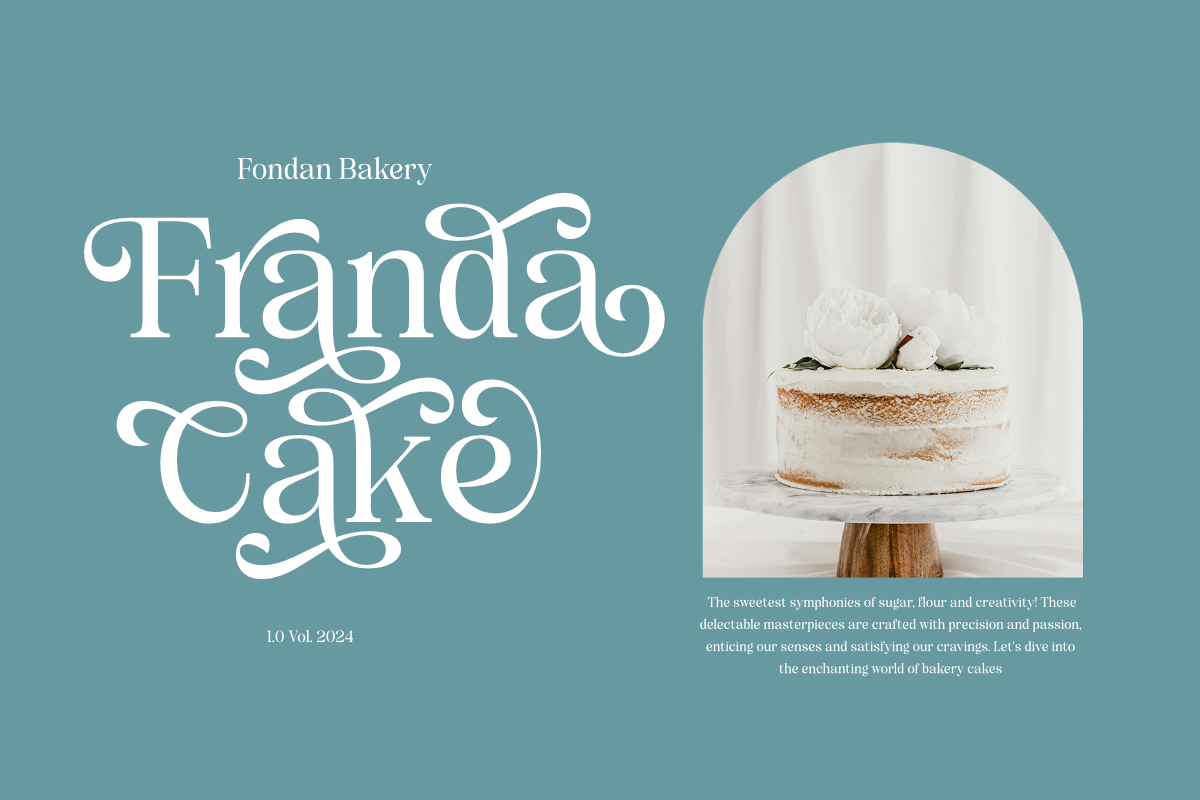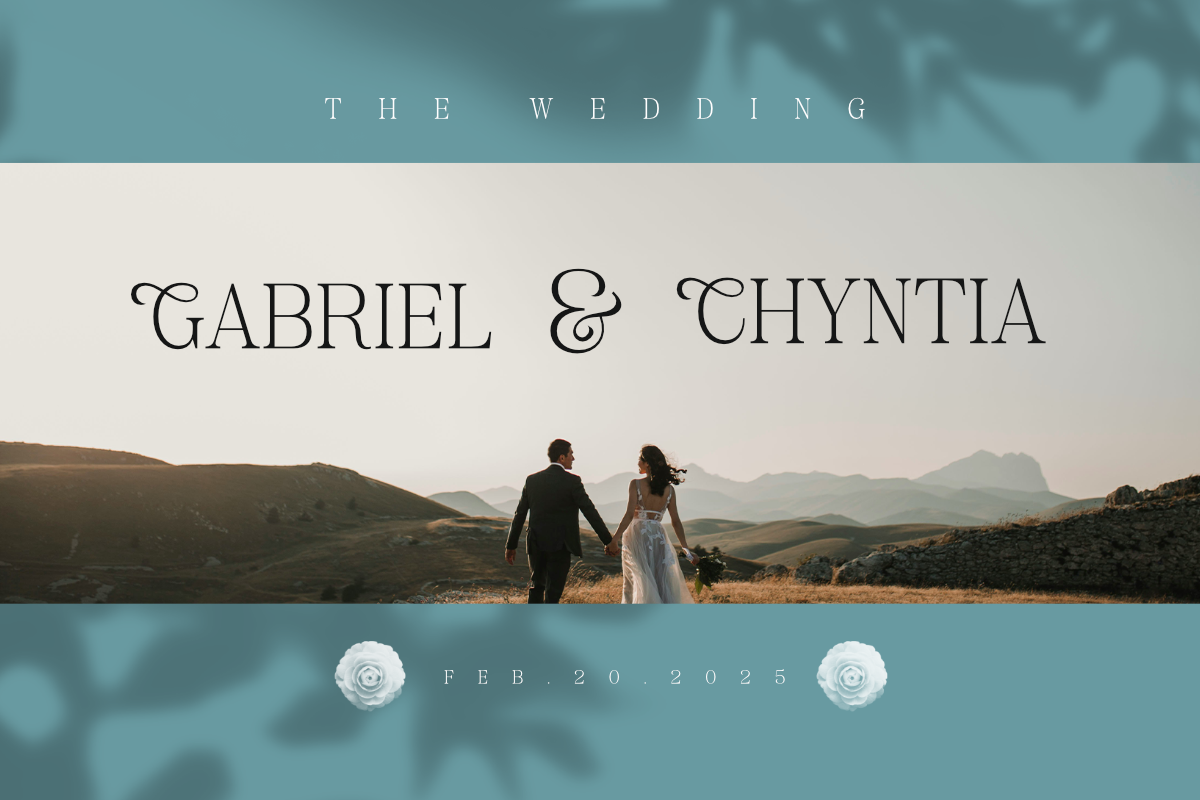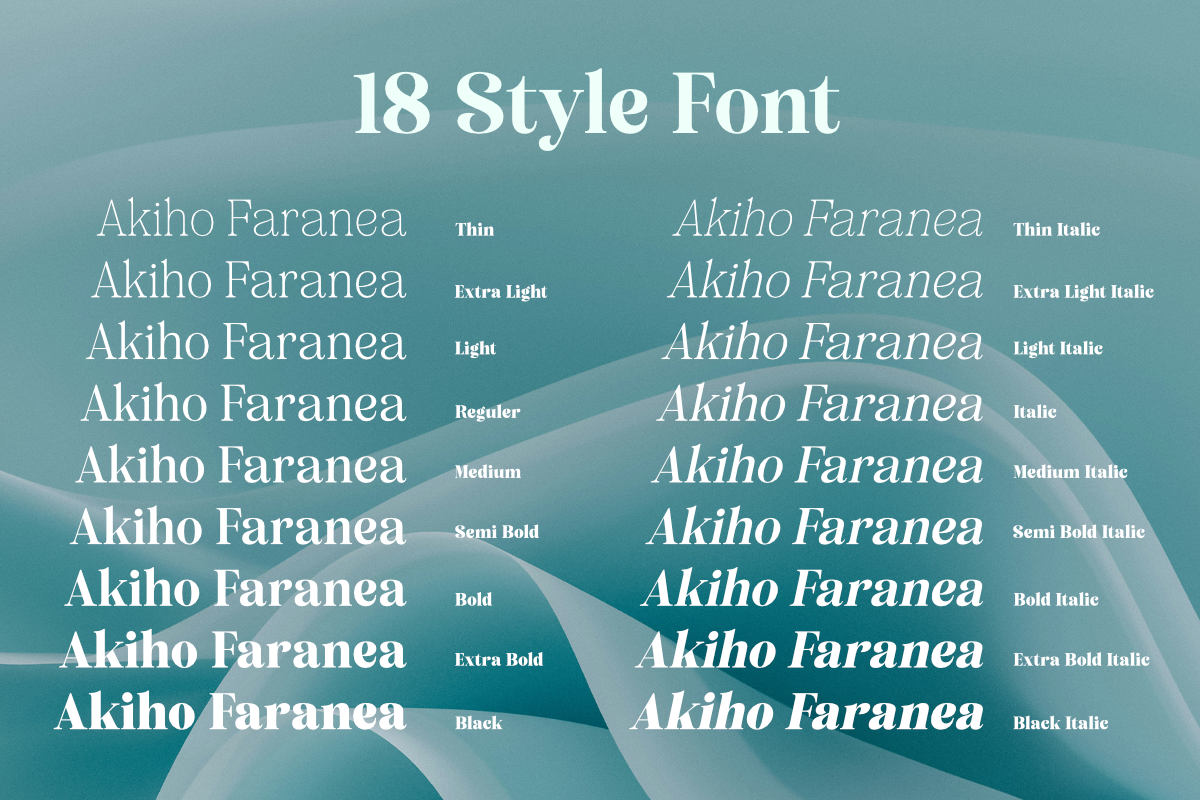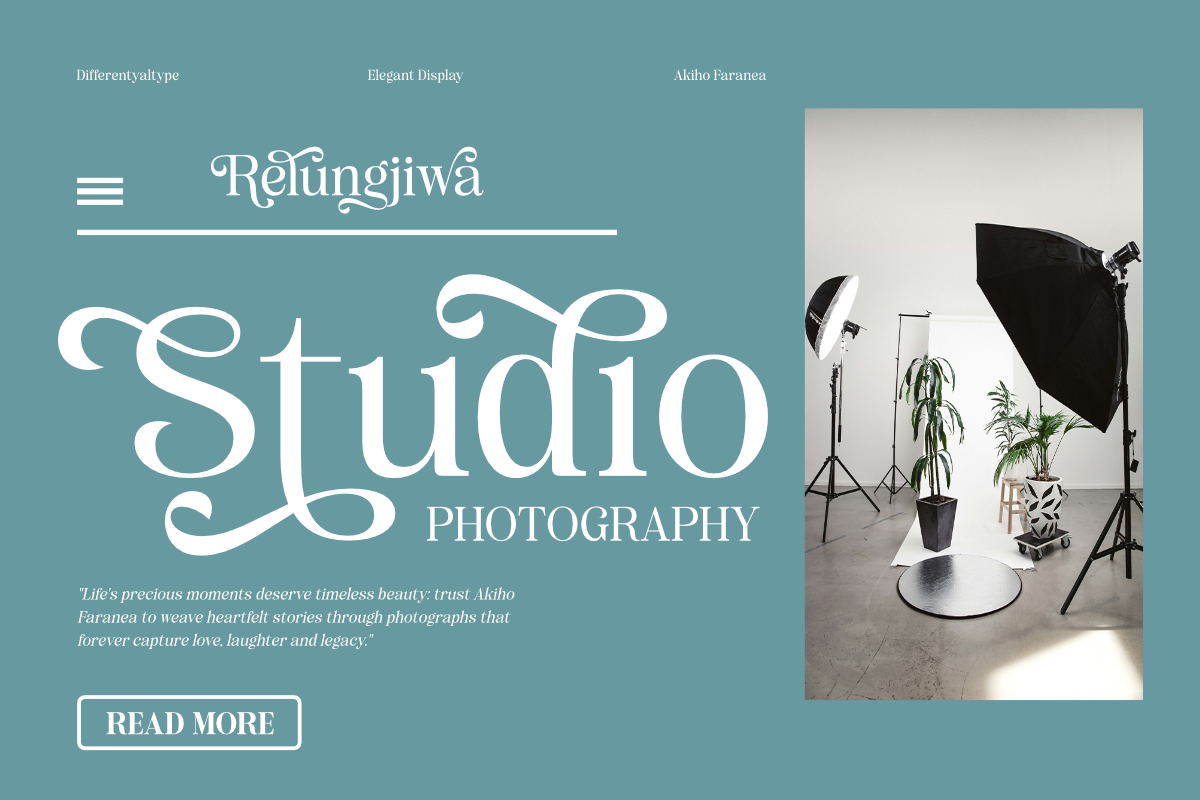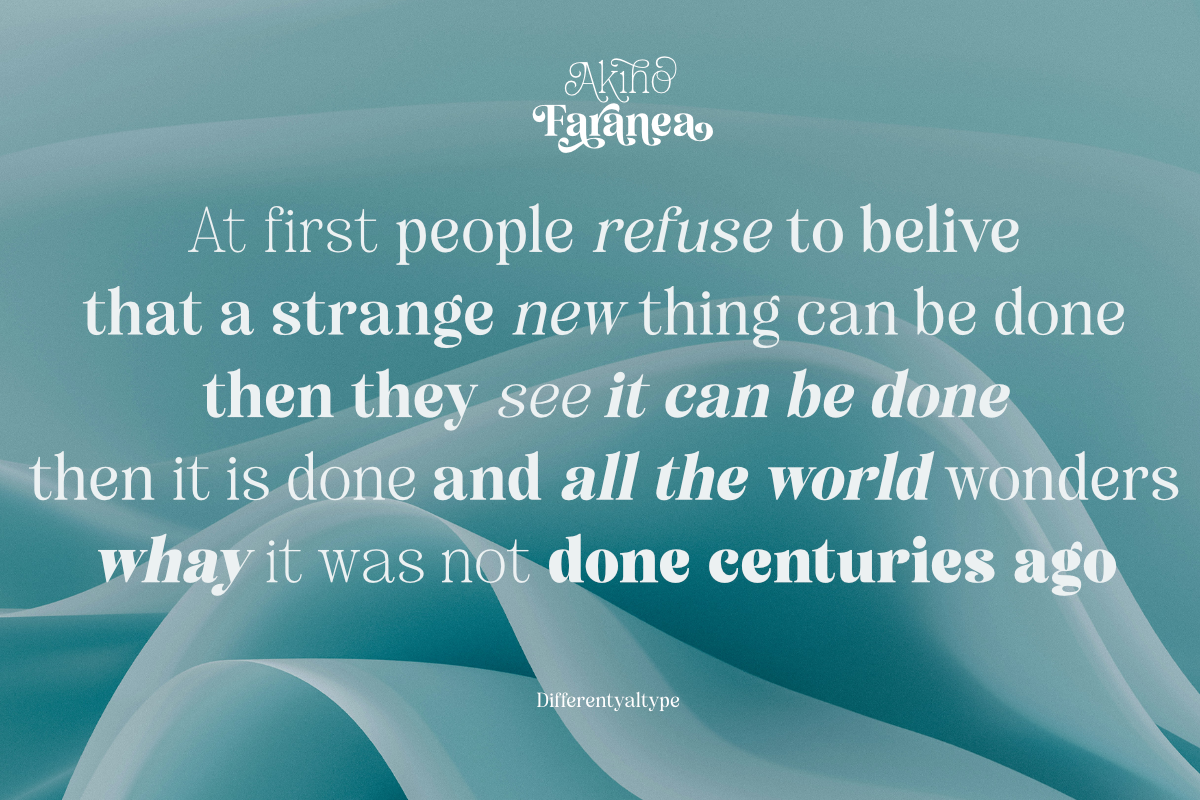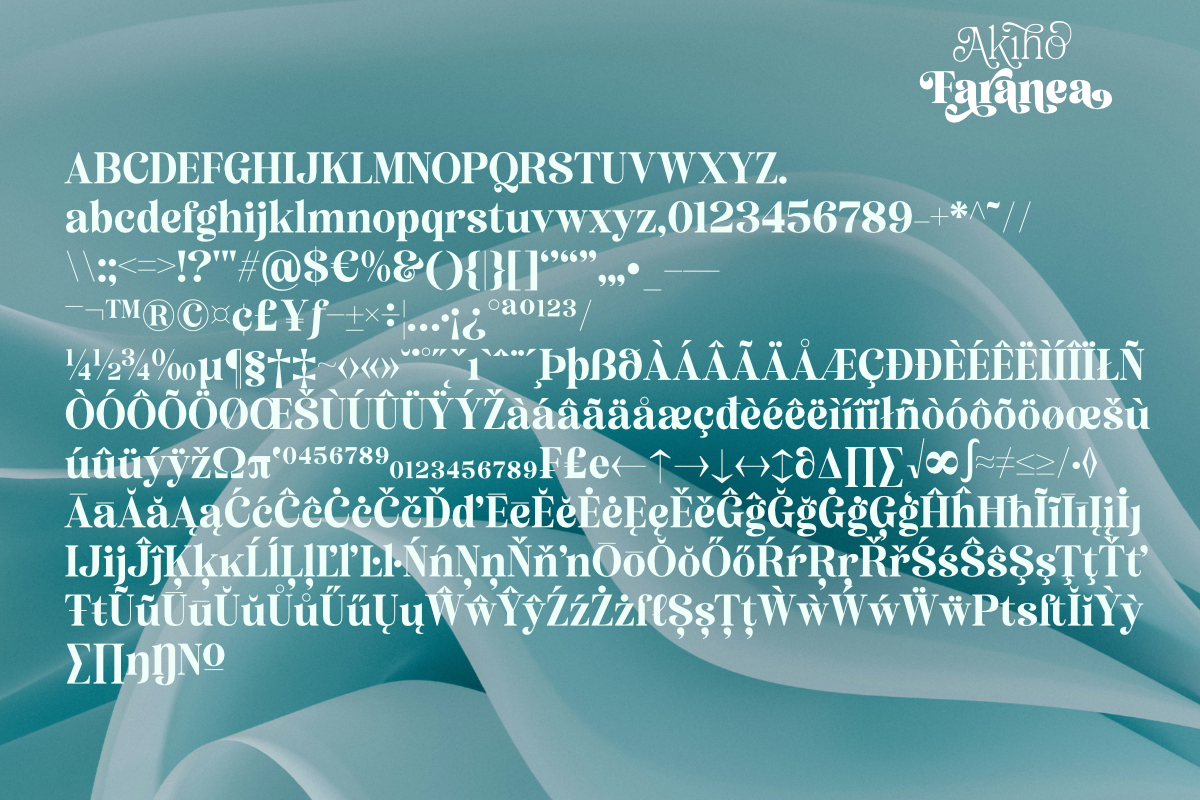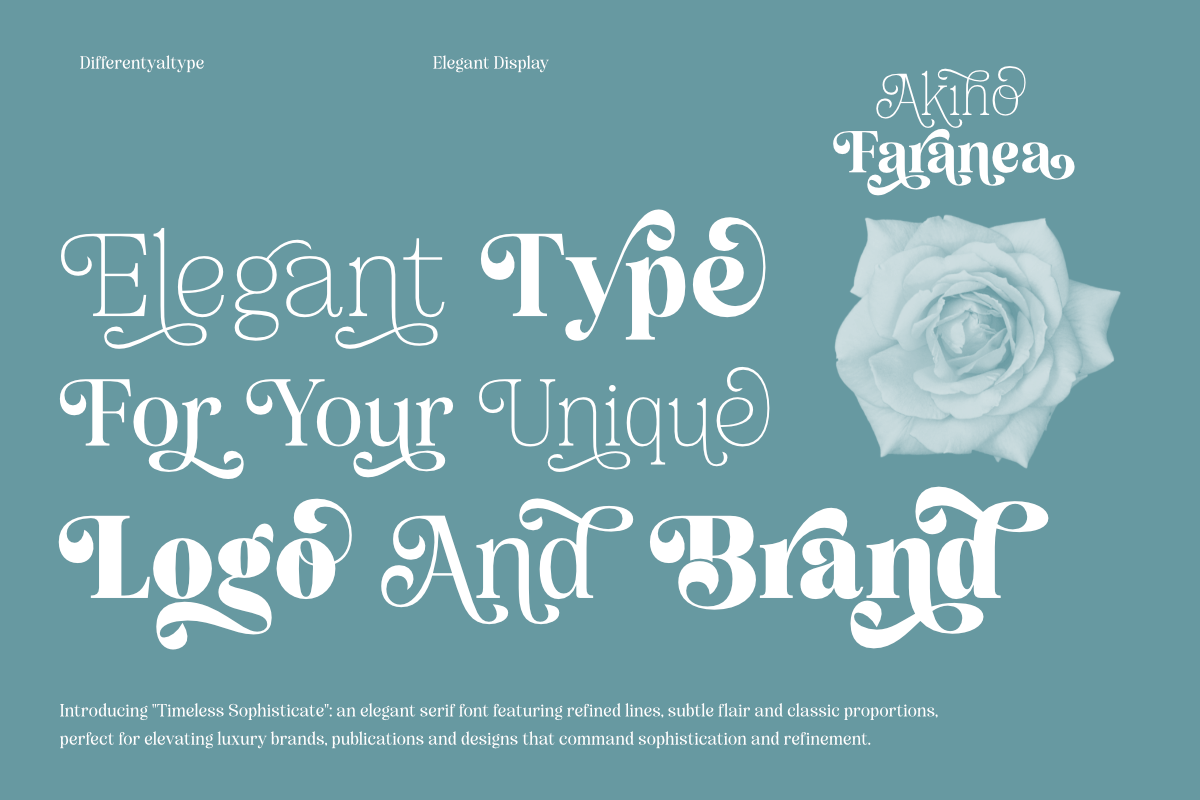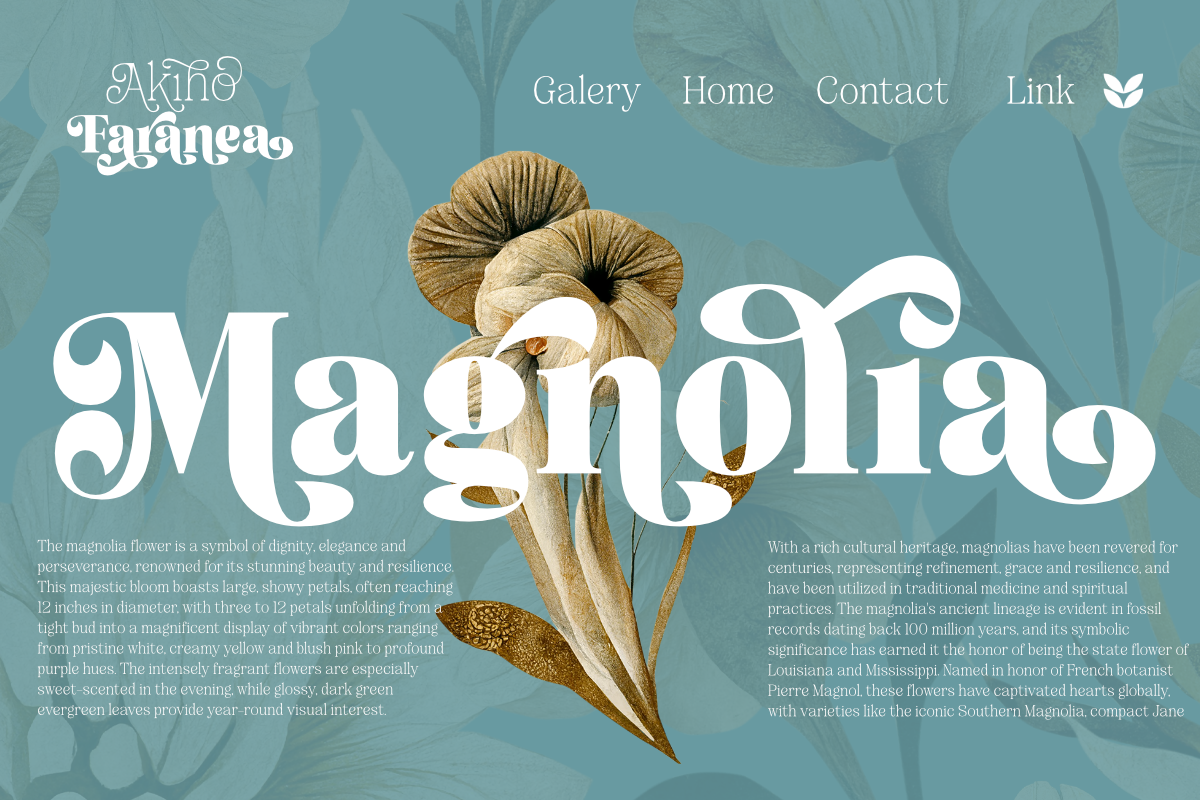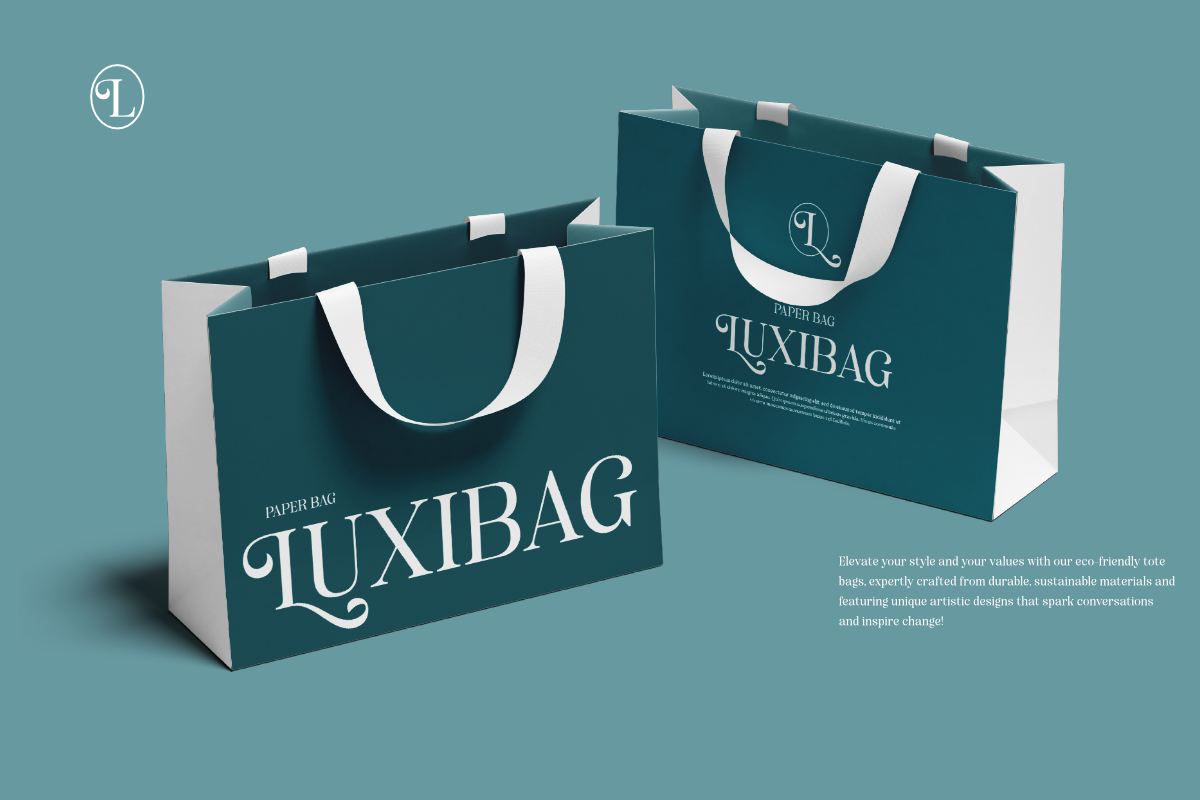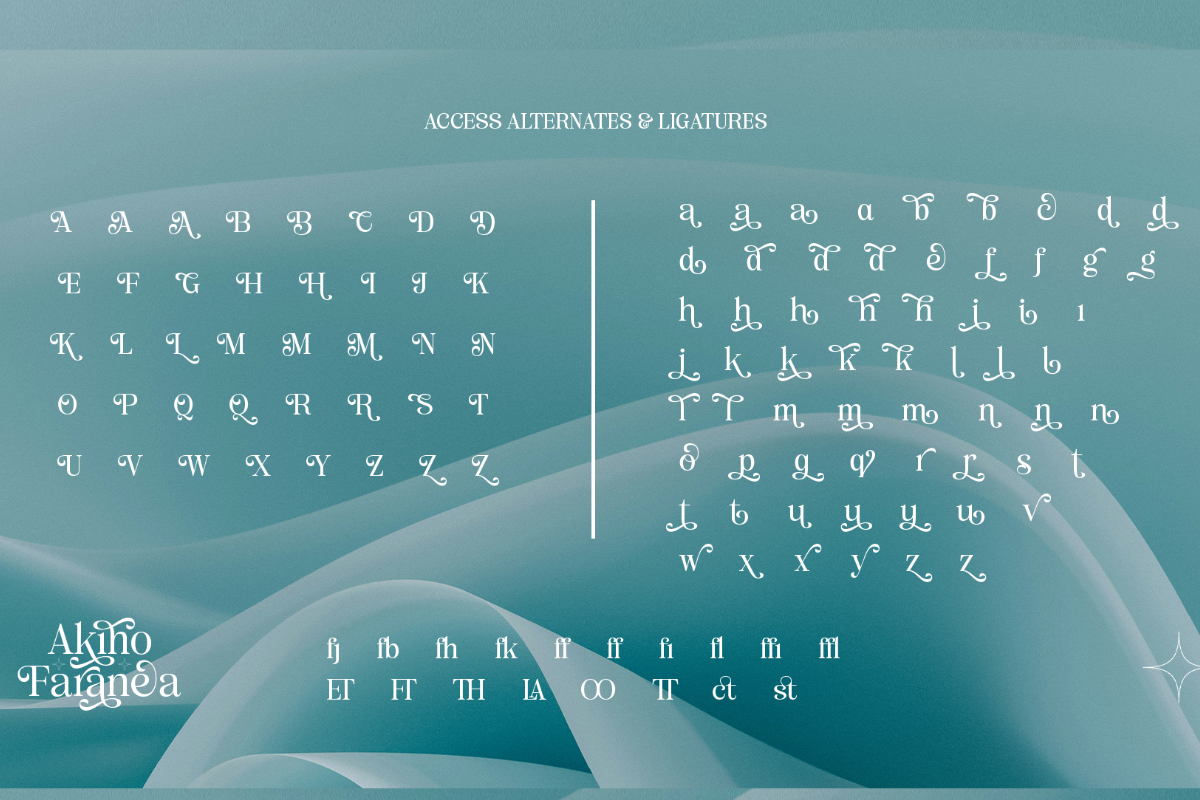
Akiho Faranea - Serif Display Family
Akiho Faranea is a stunning serif display font family that seamlessly blends elegance, beauty, and a touch of retro vintage charm. With 18 distinct styles ranging from a delicate thin to a black, each accompanied by its italic counterpart, this versatile typeface offers endless possibilities for your creative endeavors. Its graceful curves, intricate details, and harmonious proportions evoke a sense of nostalgia, making it perfect for designs that yearn for a bygone era.
Whether you're crafting eye-catching titles, composing elegant documents, or branding a product with a touch of vintage flair, Akiho Faranea is the ideal choice. Its diverse styles allow you to explore a wide range of typographic expressions, from classic and timeless to bold and modern. From vintage-inspired logos to retro-themed posters, this font family can elevate your designs to new heights. With numerous stylistic alternates, you can further customize your typography and create truly unique and personalized designs. Embrace the beauty of Akiho Faranea and let your creativity soar.